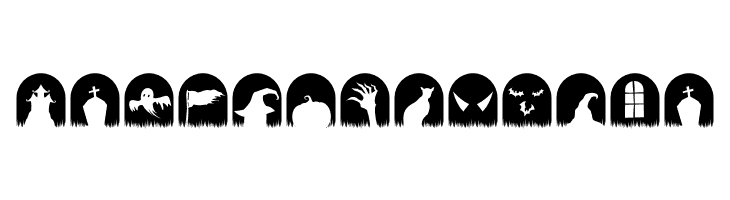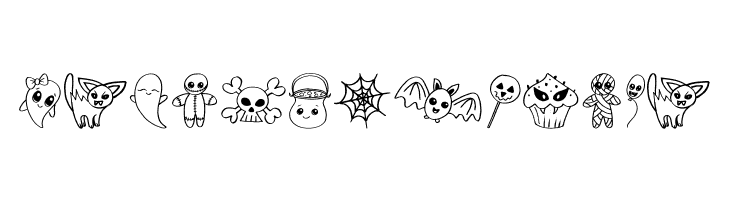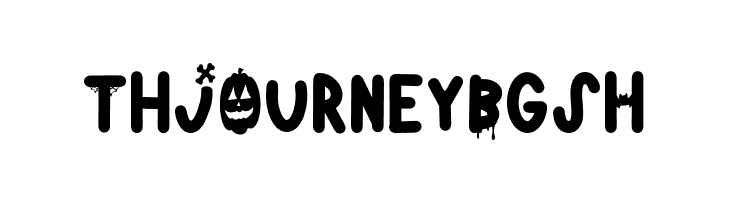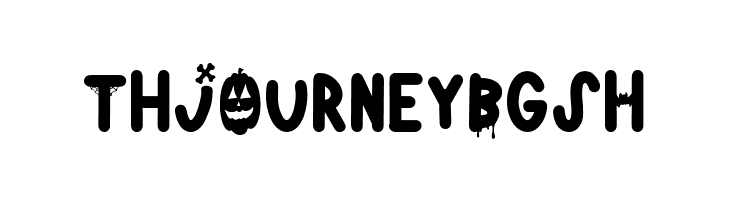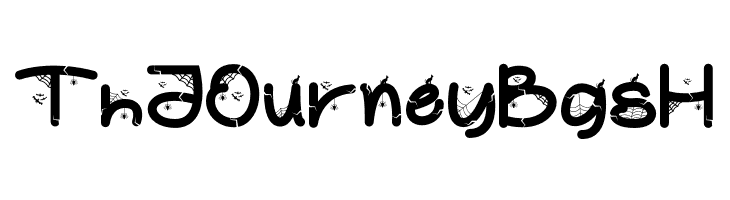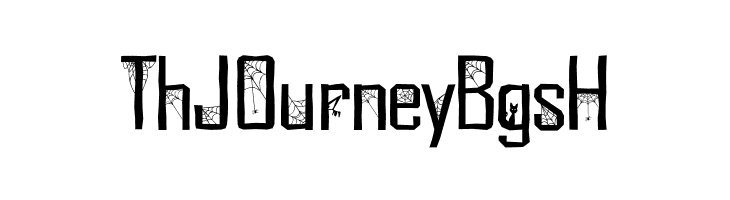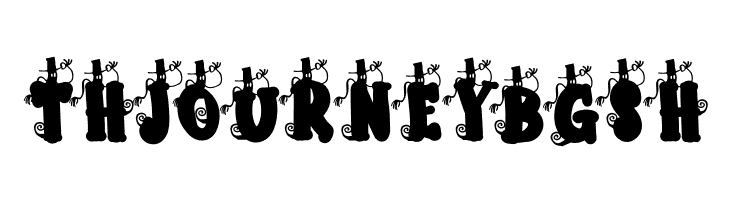
A decorative Halloween-themed font with spooky silhouettes and playful designs.
Hand-drawn Halloween doodle font with cute, playful icons.
A playful, Halloween-themed decorative font with spooky elements.
A Halloween-themed decorative font with playful, spooky elements.
A playful, spooky font with decorative Halloween-themed elements.
A spooky, Halloween-themed decorative font with ghostly and webbed elements.
A bold, spooky decorative font with playful Halloween-themed accents.